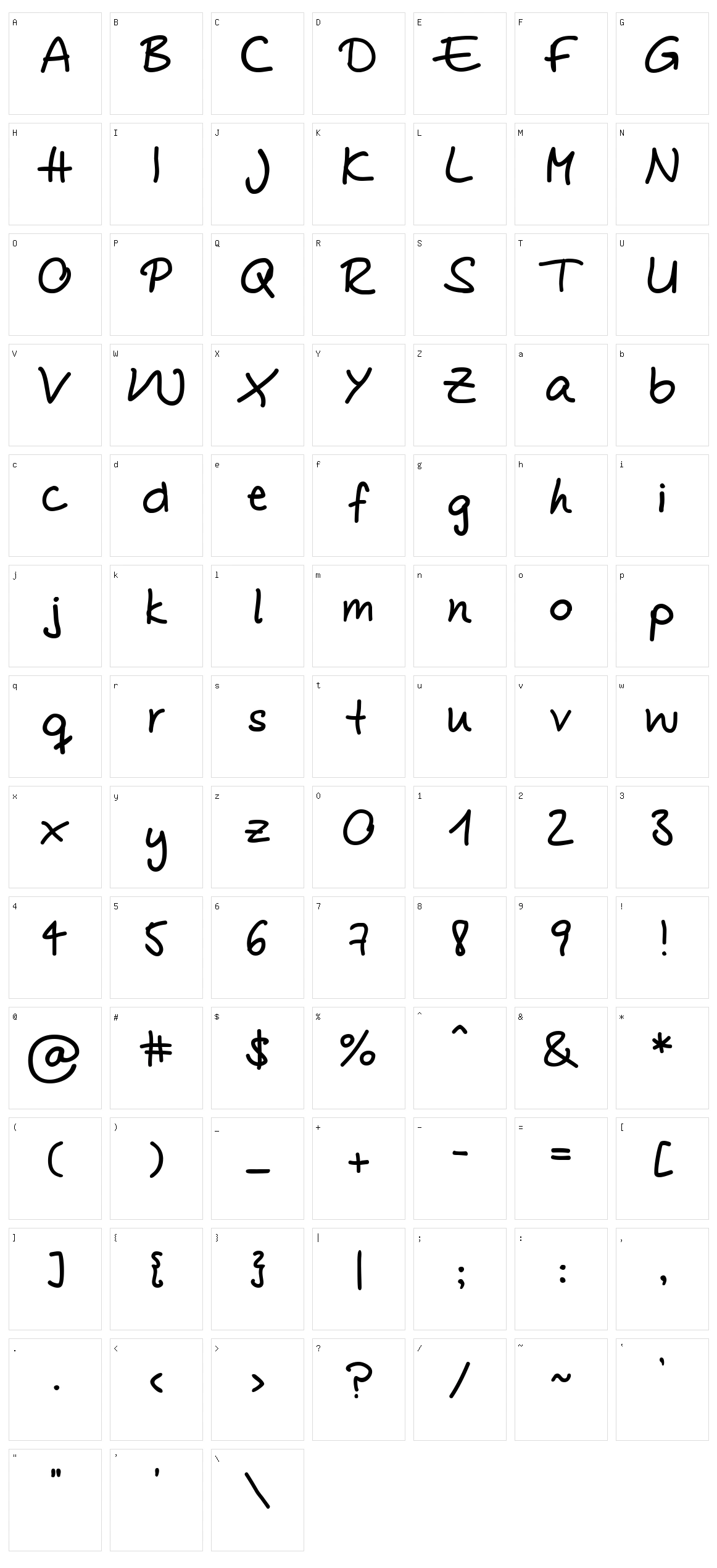
This typeface was created in 2002 by graphic designer Mareen Fischinger to be a handlettered-looking complement to your standard copy.
It contains very many European and special characters.